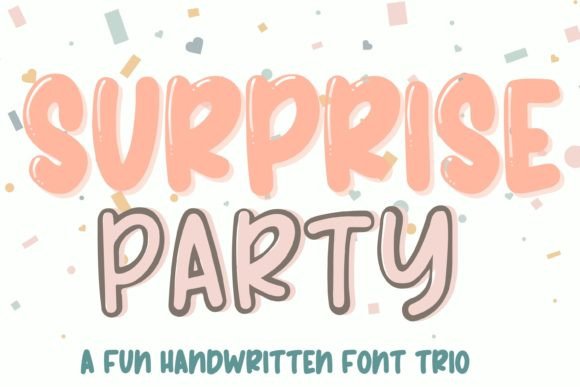
Introducing Surprise Party Trio Font, the ultimate choice for adding a touch of excitement and joy to your projects! Crafted by designingdigitals, this font family is designed specifically for those looking to create captivating party flyers and invitations that leave a lasting impression.
Surprise Party Trio Font is your go-to companion for all things celebratory! Bursting with vibrant and bubbly handwritten sans-serif styles, it effortlessly infuses your designs with a sense of fun and playfulness. Whether you're designing birthday cards, event posters, t-shirts, stickers, or even engaging crafts, this font trio is your secret weapon to capturing attention and sparking excitement.
Featuring not just one, but three incredible fonts, Surprise Party Trio Font offers endless creative possibilities. The regular font serves as a solid foundation, exuding a delightful sense of enthusiasm. The balloon font adds an extra pop, elevating your text to new heights and creating an eye-catching visual element. And let's not forget the outline font, which adds a unique touch of charm and whimsy.
What sets Surprise Party Trio Font apart is its versatility. You have the freedom to use each font individually, allowing you to tailor your designs to your specific needs. But why stop there? Unleash your creativity and layer these fonts for a truly dynamic and playful effect. Watch as your text dances with joy, capturing the essence of any party atmosphere.
Embrace the power of Surprise Party Trio Font and let it ignite the imagination of your audience. With its lively and distinctive style, your designs will radiate with energy and excitement. Imagine the smiles on faces, the anticipation it builds, and the irresistible urge to join in on the festivities.